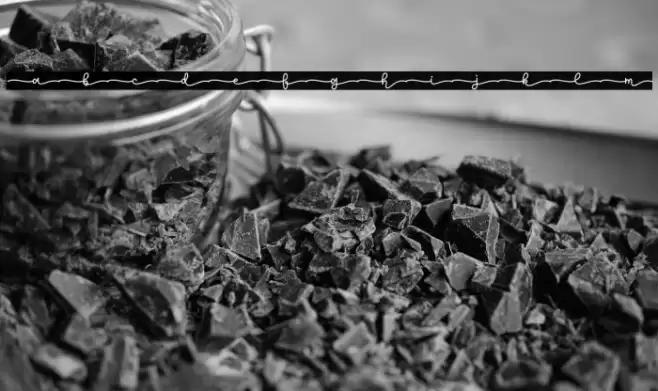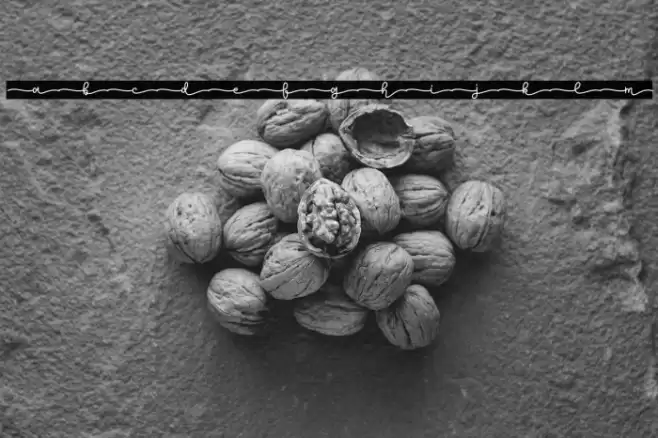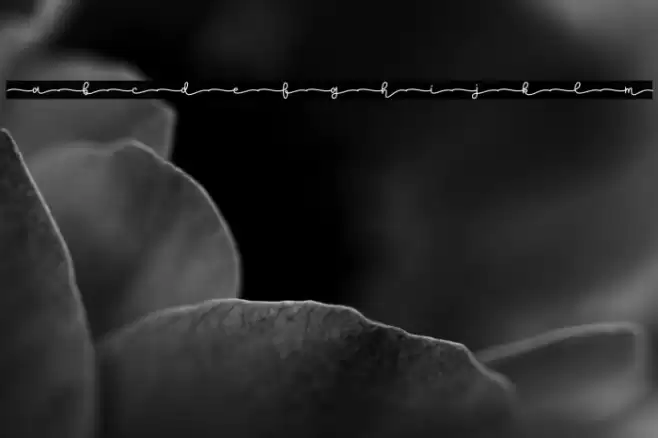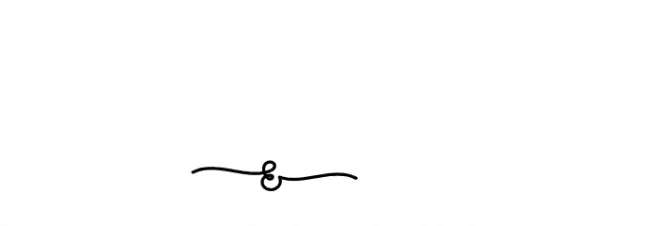
Lemon Tea Demo Font
Lemon Tea Demo Description
This font features a whimsical and flowing script style, characterized by its continuous, looping strokes that connect each letter seamlessly. The lowercase letters exhibit a playful and casual aesthetic, with a consistent baseline and gentle curves that create a sense of movement and fluidity. The font's design is reminiscent of handwritten calligraphy, offering a personal and artistic touch. Its unique style makes it suitable for creative projects that require a touch of elegance and individuality. The font's simplicity and charm make it versatile for various design applications.
A whimsical, flowing script font with continuous, looping strokes from Uncategorized fonts.
- Font: Lemon Tea Demo
- Proposed Projects: Ideal for wedding invitations, greeting cards, personal branding, and artistic projects.
- Use Case: Logos, Invitations, Artistic projects